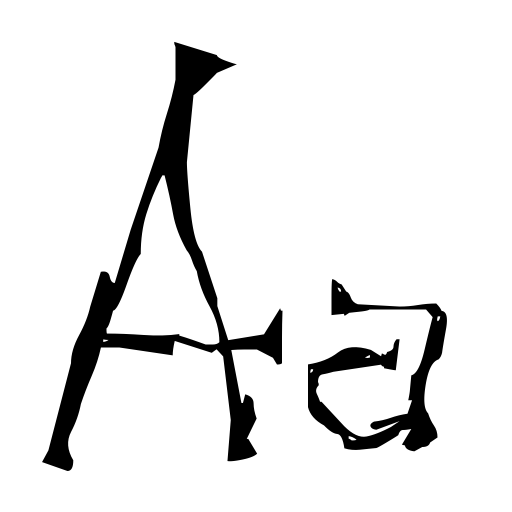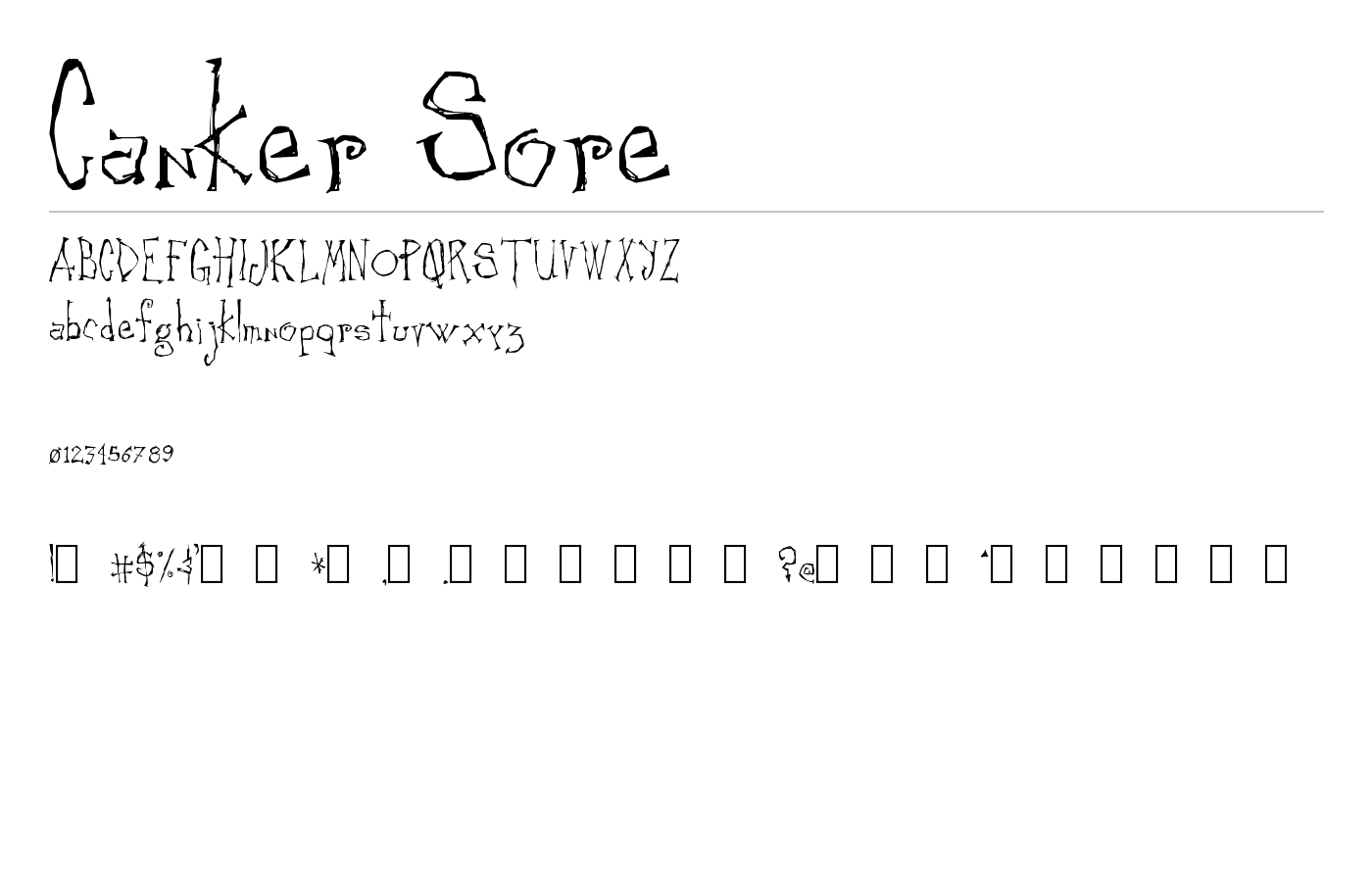
Canker Sore is a quirky, hand-drawn serif font with an irregular, edgy style that feels both playful and slightly eerie. Its narrow, jagged letterforms and uneven strokes give it a raw, expressive character ideal for creative projects needing a distinct, unconventional look. This font works well for unique logos, horror or mystery themes, and artistic posters where personality and mood are key.
Canker Sore Font
About Canker Sore Font